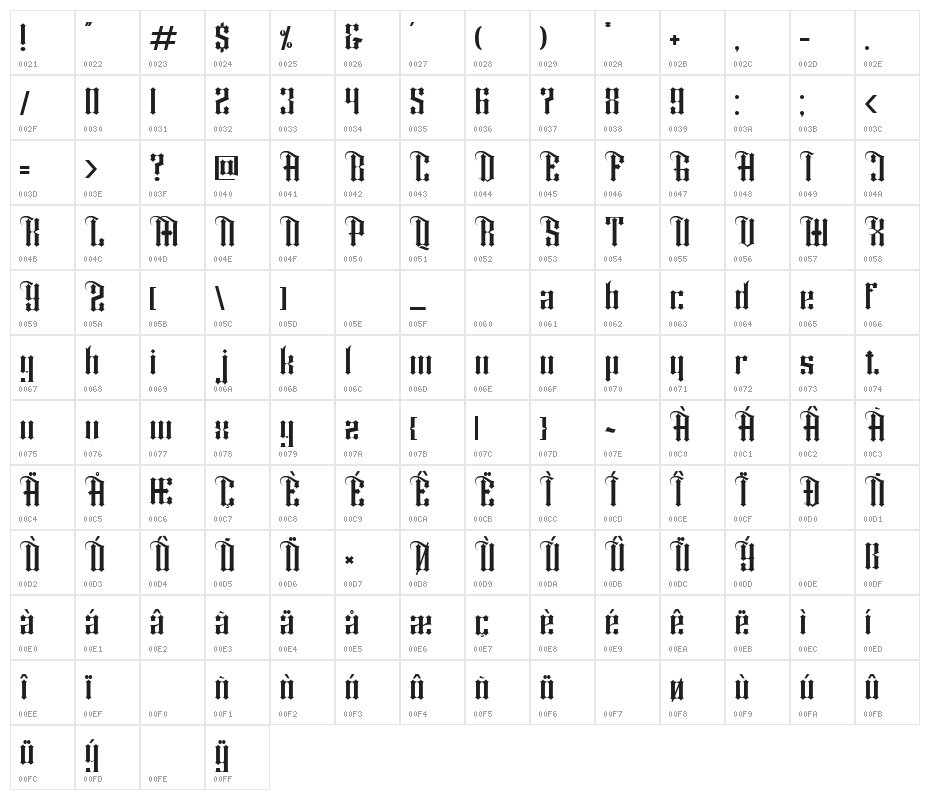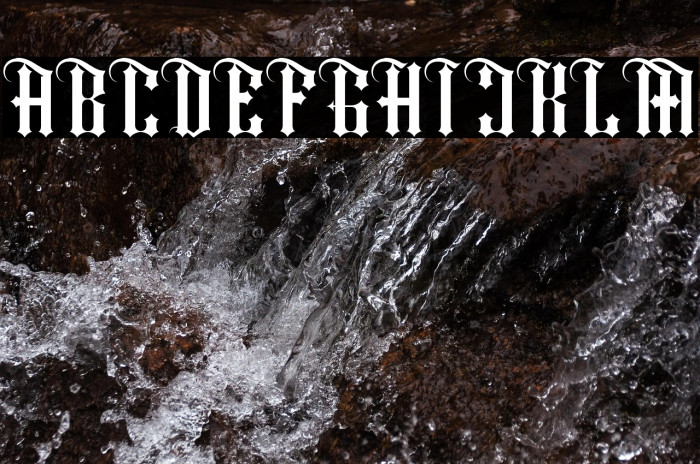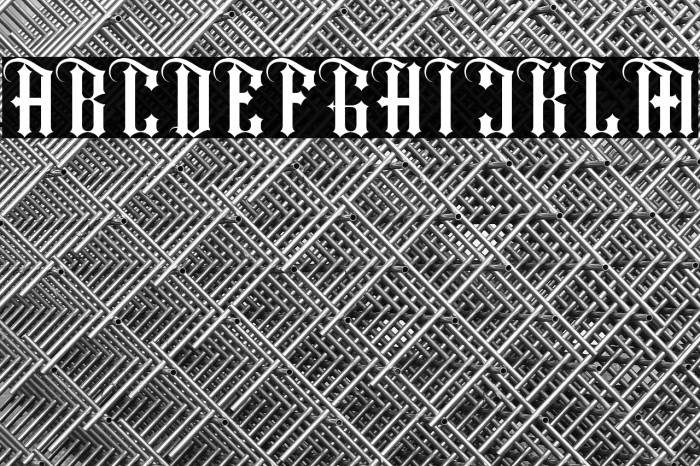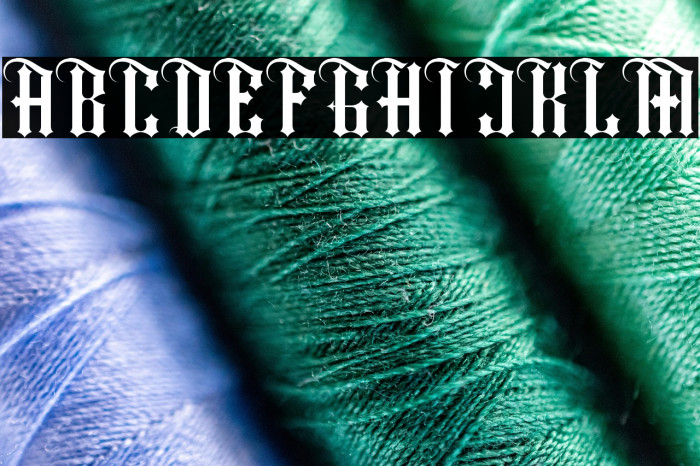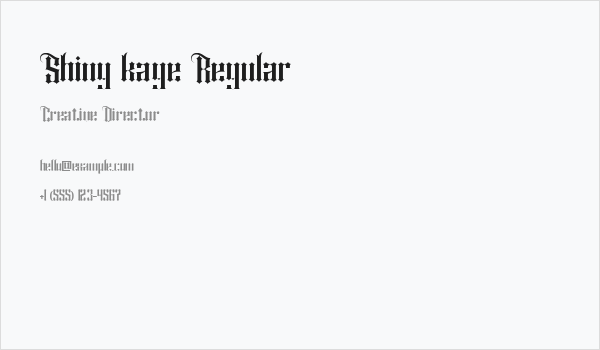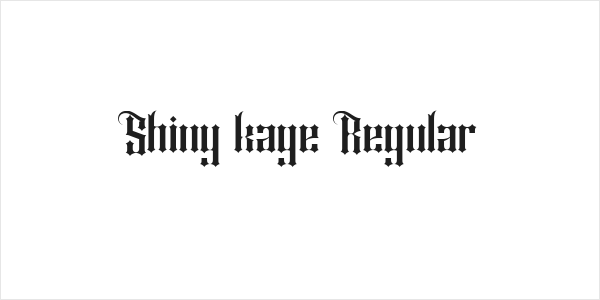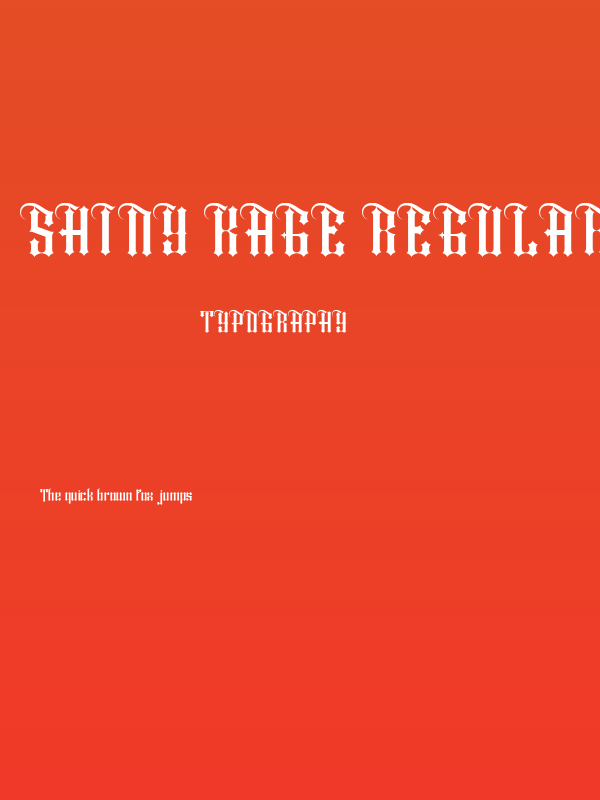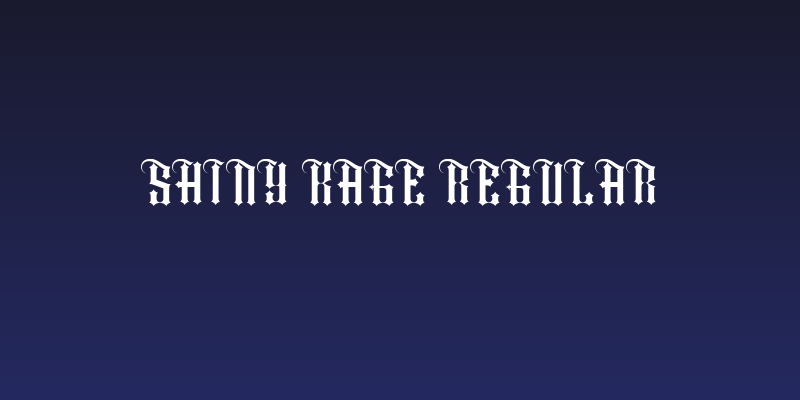
Shiny kage Regular Font
Shiny kage Regular Description
This font features a striking and bold blackletter style, characterized by its intricate and angular letterforms. The uppercase letters are ornate with sharp edges and elaborate flourishes, while the lowercase letters maintain a consistent gothic aesthetic. The numbers and special characters are designed to match the overall medieval theme, adding a sense of historical depth. The font's dramatic appearance makes it ideal for projects that require a strong visual impact, such as posters, logos, or themed events.
| Use Case | Logos, Headlines, Decorative |
| Proposed Projects | Ideal for posters, logos, themed events, and any project requiring a dramatic, historical look. |